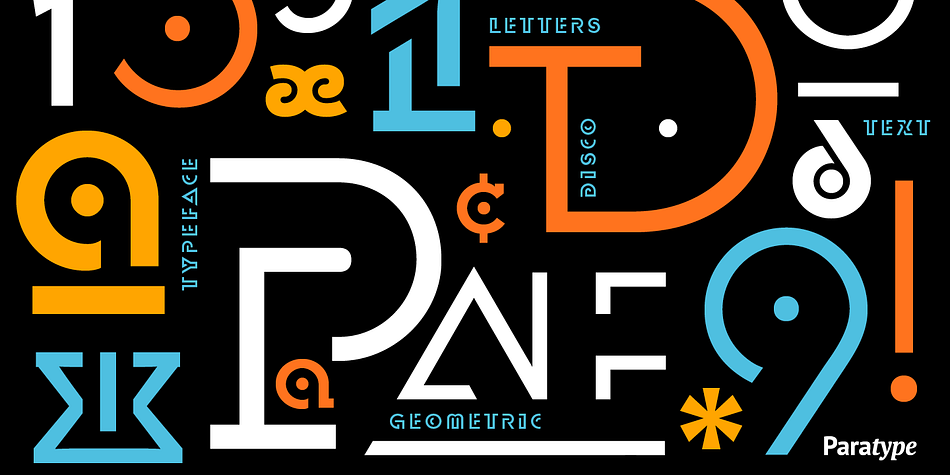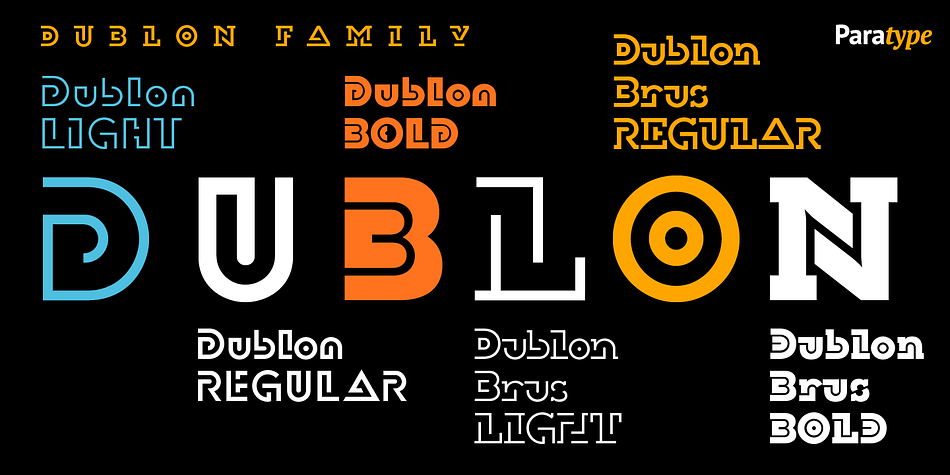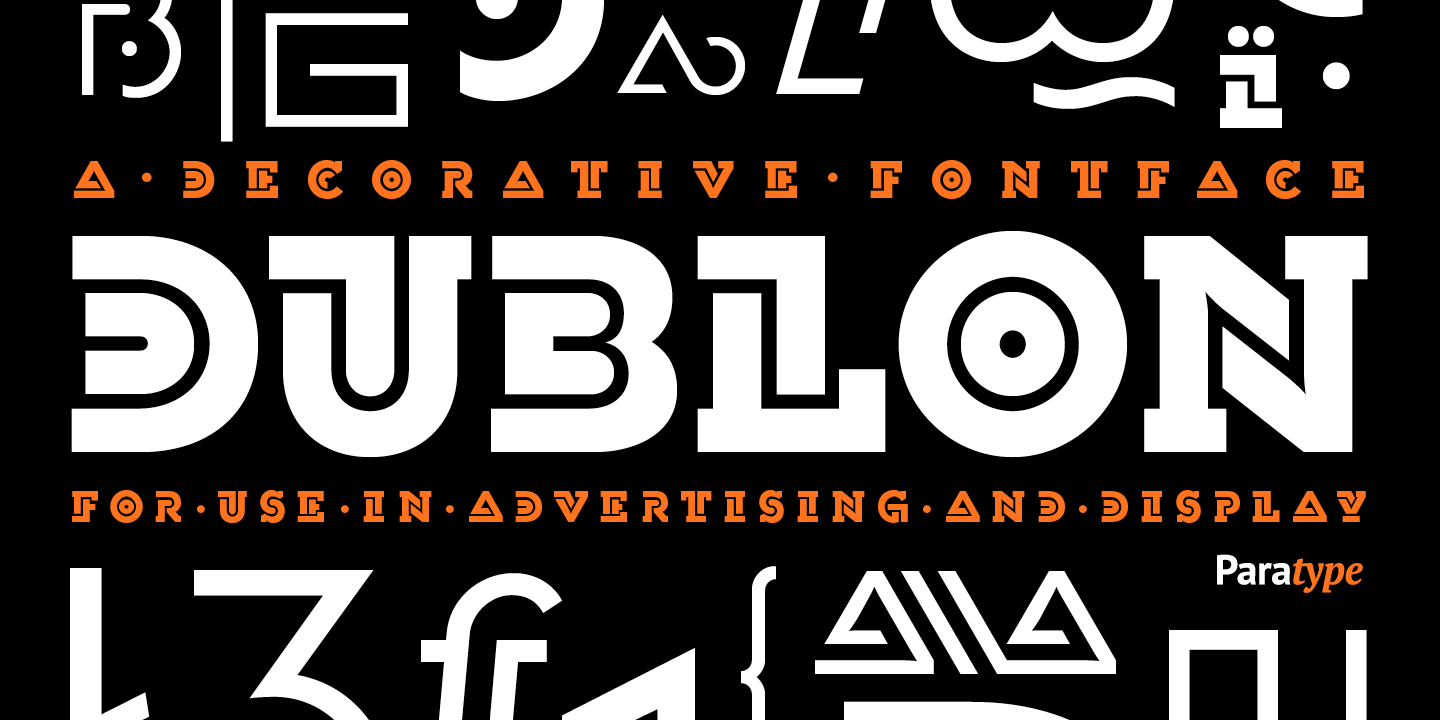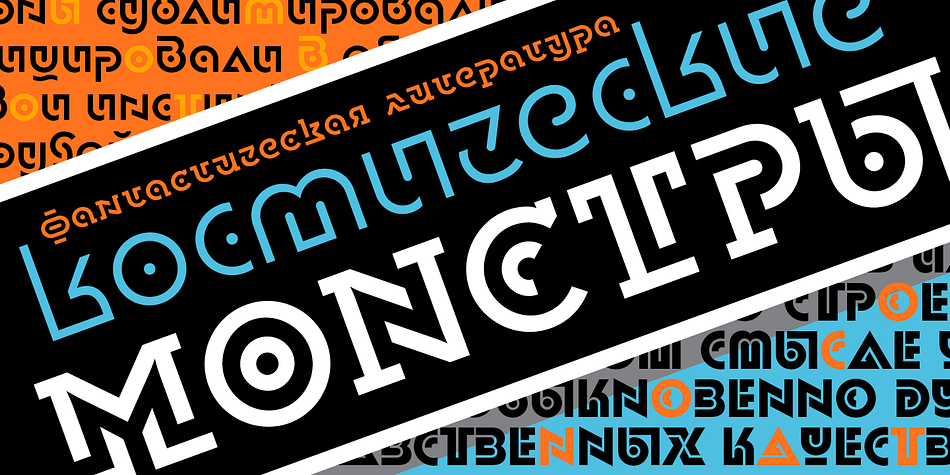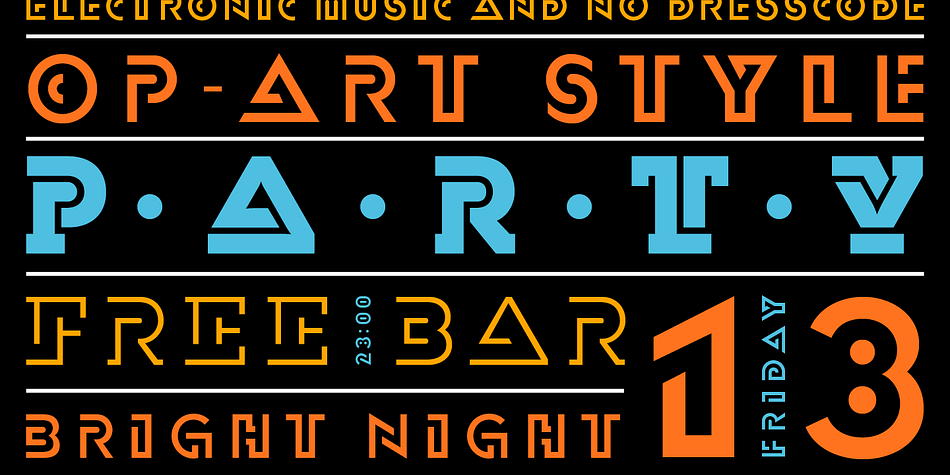
Designed by Oleg Karpinsky, Dublon Brus is a novelty font family. This typeface has three styles and was published by ParaType.
The typeface was designed for ParaType in 1999 by Oleg Karpinsky basing on his Dublon typeface (1994). A decorative face in Op-Art style with slab serifs. For use in advertising and display typography.